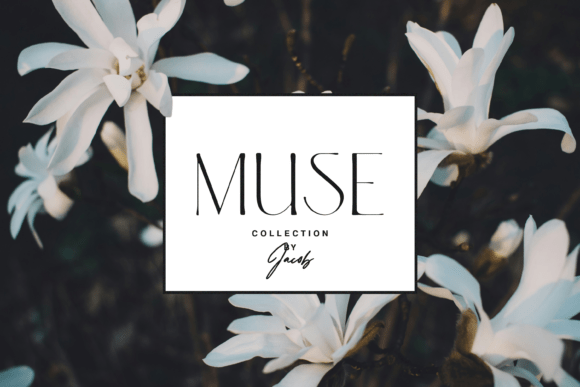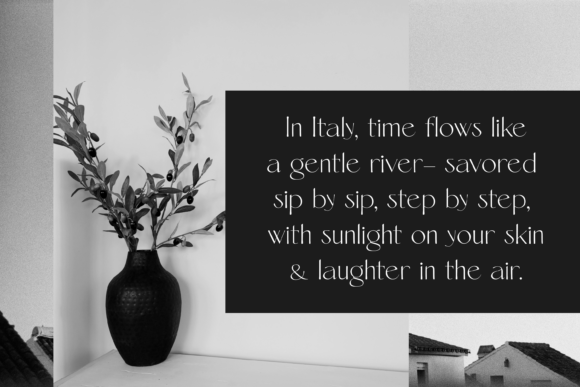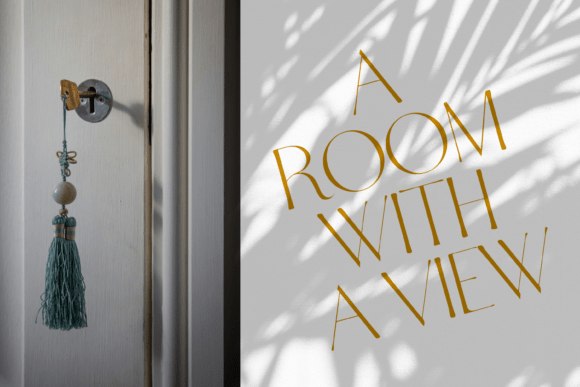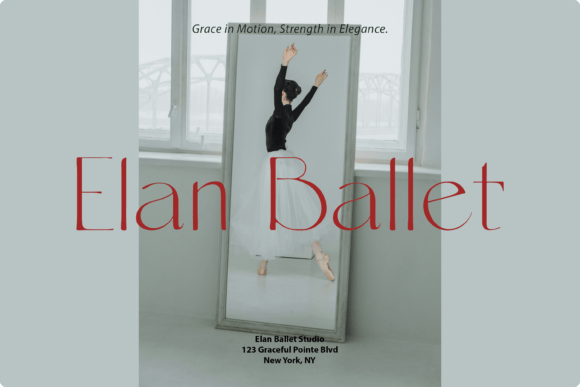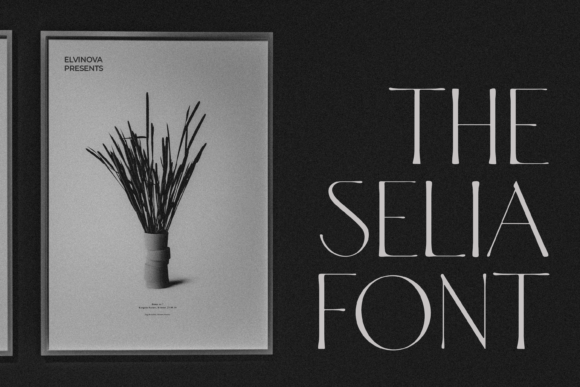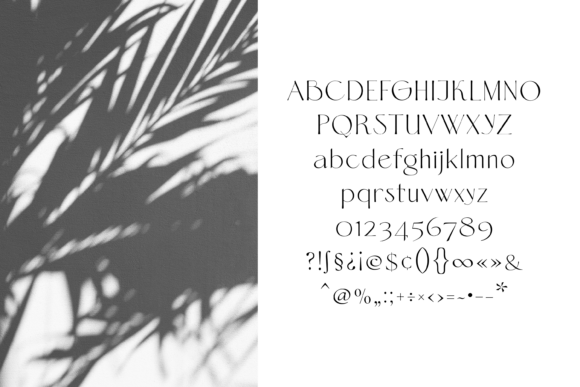
Introduction to Selia Font
Have you ever stared at a blank canvas, struggling to find the perfect words to bring your creative project to life? I know I have. The blank page can be intimidating, but the right design resource can make all the difference. That’s where the enchanting Selia Font comes in – a delicate, antique-style font that exudes organic charm and timeless elegance.
Selia Font is more than just a pretty face; it’s a valuable asset for designers looking to add a touch of sophistication to their work. With its handmade feel and feminine aesthetic, it’s perfect for artistic and chic designs that demand a high level of quality. Whether you’re working on a free download or a commercial project, Selia Font is sure to impress.
One of the standout features of Selia Font is its transparent background, allowing you to easily integrate it into your design without any distracting elements getting in the way. With its versatility and charm, it’s no wonder Selia Font has become a go-to choice for designers looking to elevate their work to the next level.
Key Features of Selia Font
- Designed with precision, ensuring crisp and clear text at various resolutions.
- Comes in a range of styles and weights, making it versatile for various design needs.
- Perfect for digital and print design applications, including logos, typography, and branding materials.
- Supports various languages and is compatible with most operating systems and software.
Honest Review: Selia Font
I recently stumbled upon the Selia Font and was excited to give it a try for my current design project. After experimenting with the font, I must say it’s a solid addition to any design resource. Its elegant, modern look makes it perfect for creative projects that require a touch of sophistication.
- High-quality design that looks great on both digital and printed materials
- Comes with a transparent background, making it easy to work with
- ⚠️ Limited language support, which might be a concern for projects that require multilingual text
- ⚠️ Not as versatile as some other fonts in terms of font sizes and styles
Overall, I’m impressed with the Selia Font. While it may not be the perfect choice for every design project, it’s definitely a solid option for those looking for a high-quality, modern font. I’d definitely consider using it again in the future.
Tips for Getting the Most Out of Selia Font
Use Selia Font with a transparent background to create a clean and modern design. Experiment with different font sizes and styles to add visual interest to your design. Use Selia Font to create custom graphics, logos, and more.
Selia Font is perfect for designers, entrepreneurs, and small business owners who need a high-quality design resource. Use Selia Font to create stunning graphics, presentations, and more. With Selia Font, you can take your creative project to the next level.